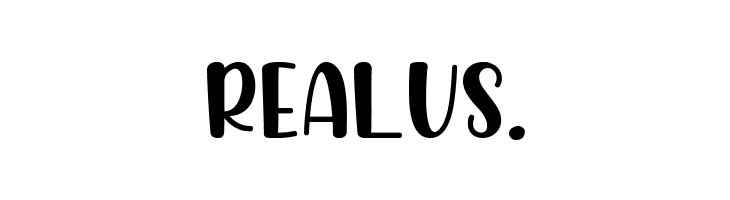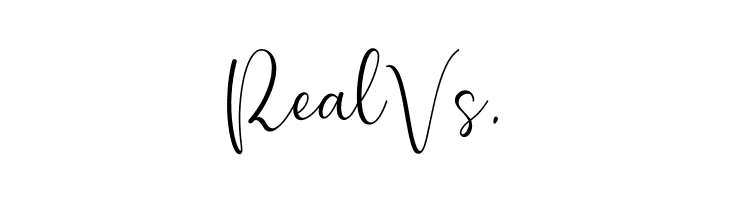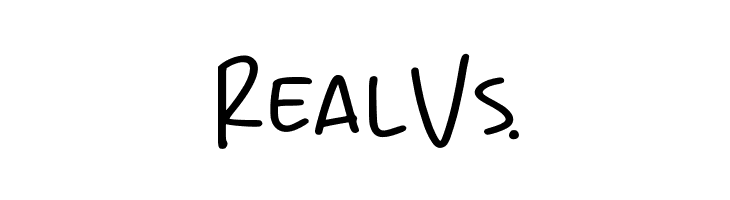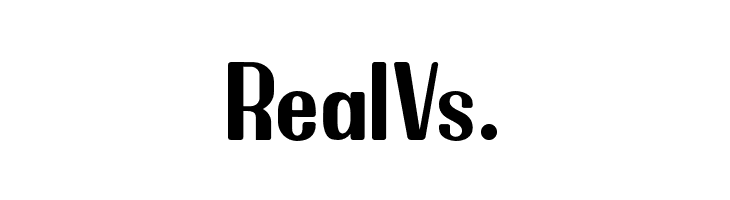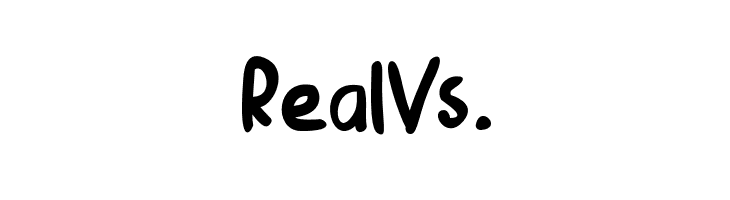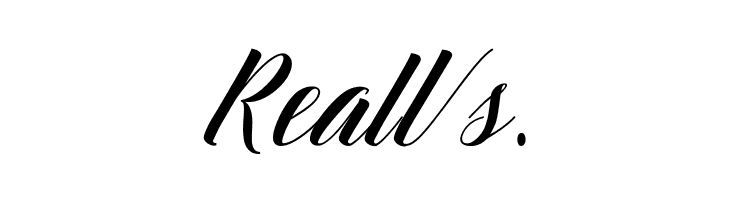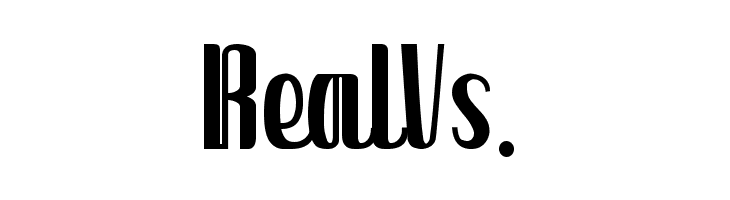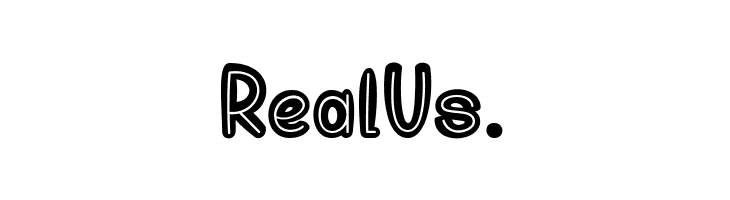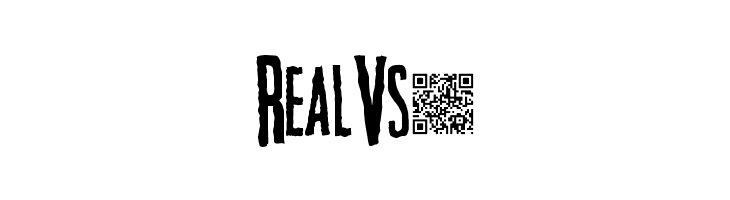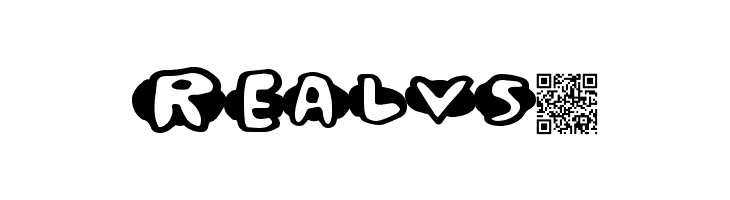
A bold, playful handwritten font with thick strokes and rounded edges.
A bold, cursive script font with dynamic strokes and elegant flair.
A bold, hand-drawn font with playful, rounded characters.
A bold, playful handwritten font with a modern, friendly style.
A bold, playful script font with flowing, cursive letters.
A playful, handwritten-style font with uneven, whimsical characters.
A casual, handwritten font with uneven, dynamic strokes.
A playful, handwritten-style font with irregular, freeform characters.
A playful, decorative font with a stitched, cursive style.
A playful, decorative font with a stitched pattern and casual, handwritten style.
A playful, bold handwritten font with rounded, irregular strokes.
A bold, expressive script font with fluid, sweeping strokes and decorative flourishes.
A playful handwritten font with a casual and friendly style.
A playful and decorative font with whimsical curls and swirls.
A casual, handwritten font with a playful and spontaneous style.
A playful, bold font with rounded, slightly irregular letterforms.
A bold, playful font with bubble-like characters and thick outlines.
A bold, outlined font with a playful and cartoonish style.
A playful, casual handwritten font with smooth, rounded strokes.
A playful, handwritten script font with smooth, flowing lines.
A playful and energetic script font with bold, flowing letterforms.
Cartoon chef-themed decorative font with playful, hand-drawn illustrations.
A bold, distressed font with an eerie, hand-drawn style.
An elegant and flowing script font with interconnected cursive strokes.
A charming handwritten script with fluid, graceful strokes and decorative flair.
A flowing, cursive font with elegant loops and a handwritten style.
A dynamic and elegant script font with fluid, cursive letterforms.
A playful, hand-drawn font with rounded, bold characters and a whimsical style.
A playful, casual handwritten font with smooth, flowing strokes.
A modern sans-serif font with clean lines and a slightly condensed structure.
A modern, elegant script font with flowing, sophisticated characters.
A bold, modern font with high contrast and elongated characters.
A bold, modern sans-serif font with a strong and clean appearance.
A playful, bold font with a cartoonish, bubbly style.
A playful, hand-drawn font with rounded edges and a whimsical style.